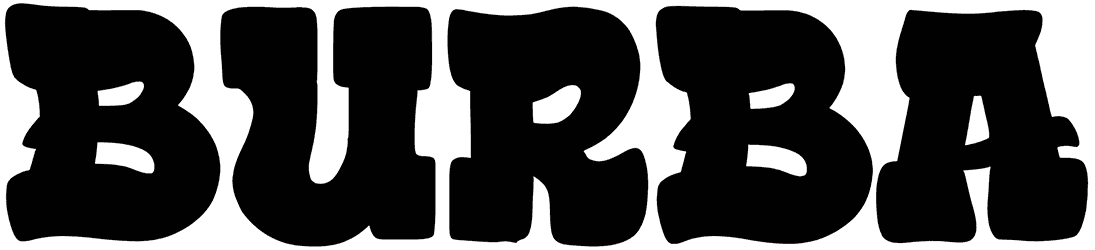
Burba Font
Don’t you just love it when the humor in your tone is obvious from the moment anyone lays eyes on your texts? That’s how Burba leaves its mark on your design as a silly font, ready to spice things up. You’ll soon realize this melting font is all about titles and logos because there’s no lowercase. So feel free to turn Burba into zoo posters, ice cream packaging, etc. And also about the numbers, only a few of them are available.